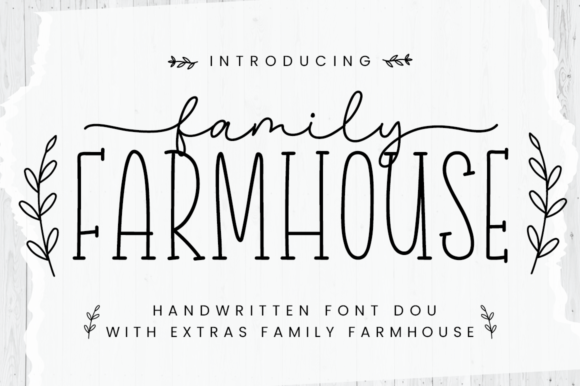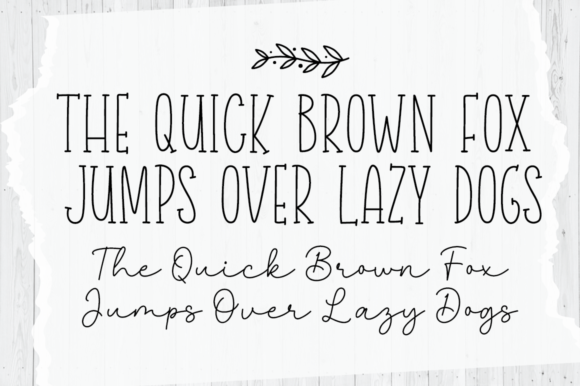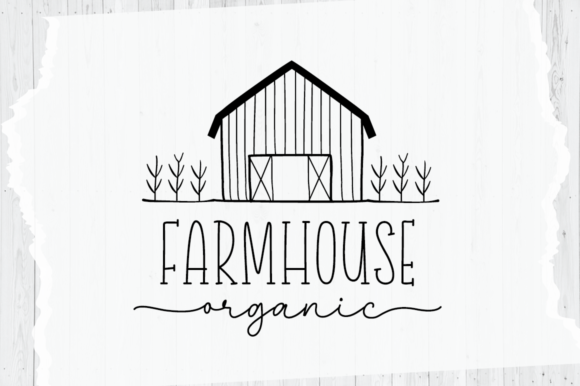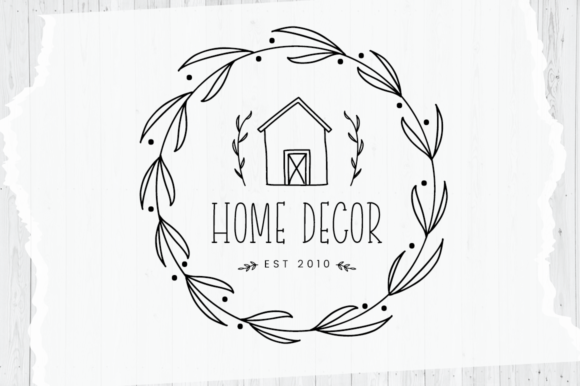
Family Farmhouse Font
Family Farmhouse consists of two fonts designed to complement each other perfectly. Together or separately, these fonts are ideal for adding a chic and cheerful touch to your craft. Family Farmhouse is PUA coded which means you can access all the glyphs and sweeps easily!